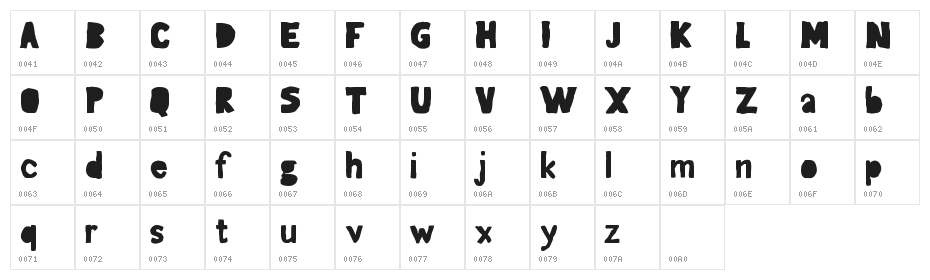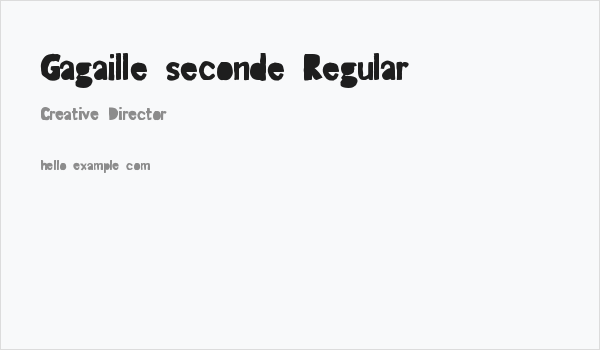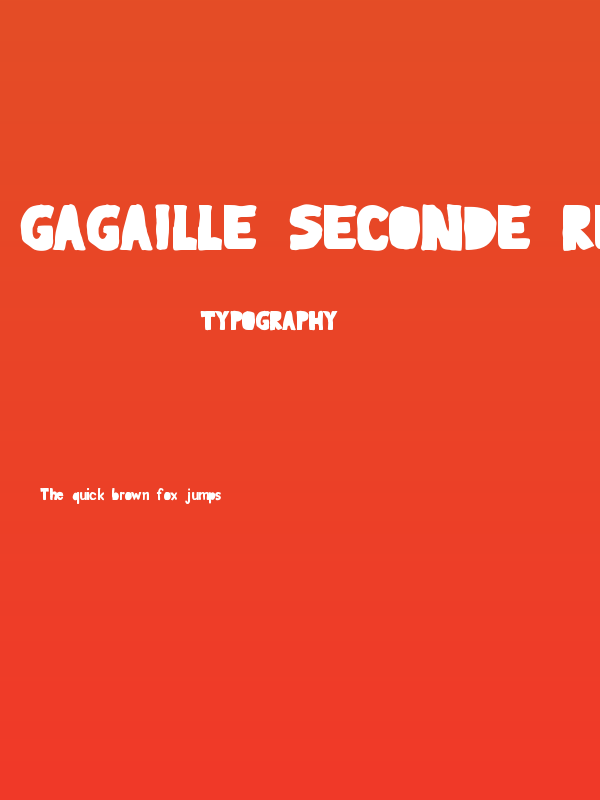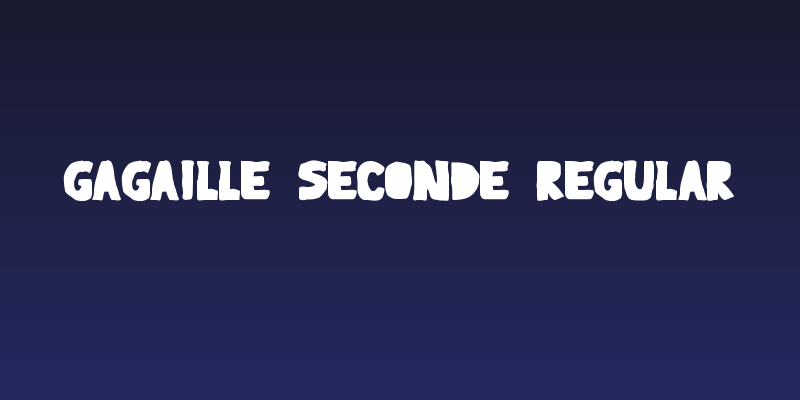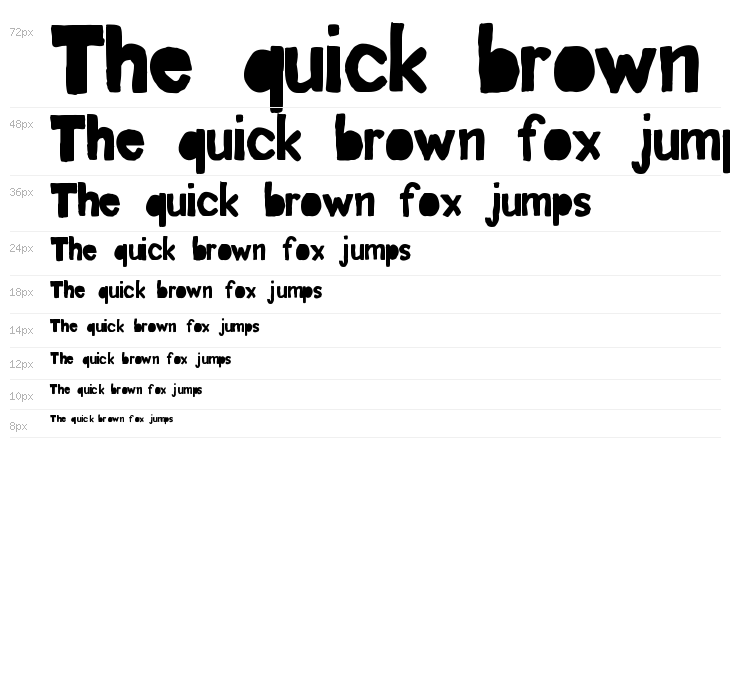
Gagaille seconde Regular Font
Gagaille seconde Regular Description
This font features a bold and playful style with a hand-drawn appearance. The characters are thick and irregular, giving it a unique, artistic feel. Each letter has a slightly different shape, adding to the font's charm and making it stand out. The strokes are uneven, with some parts thicker than others, contributing to a lively and dynamic look. This font is perfect for creative projects that require a touch of whimsy and individuality. Its boldness ensures readability while maintaining an artistic flair.
| Overall Style | Artistic, Playful |
| Proposed Projects | Ideal for children's books, creative posters, playful branding, and artistic invitations. |